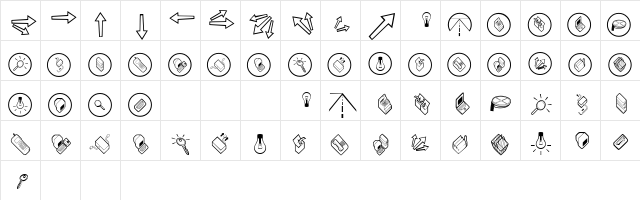
Multimedia Bitz
Design Context for Multimedia Typeface
Multimedia is a composed and adaptable typeface that performs quietly and consistently across a wide range of design contexts.